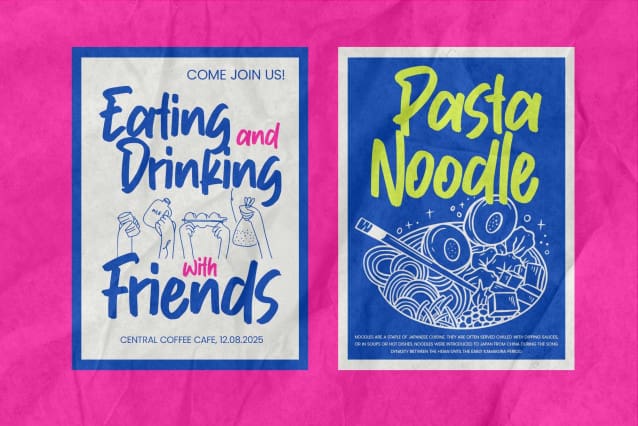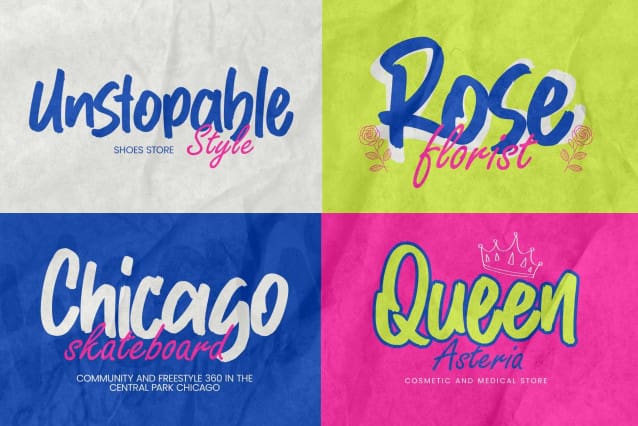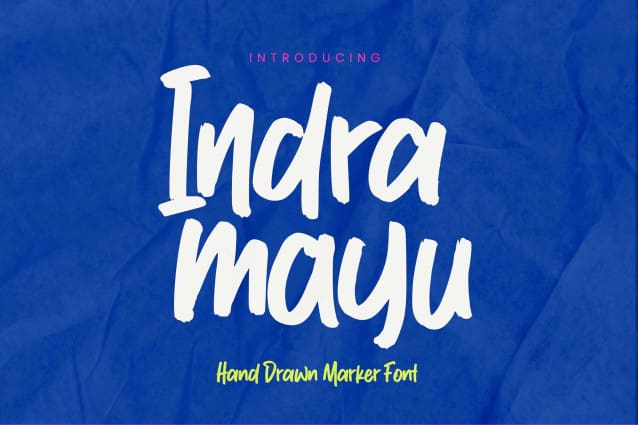
Indramayu Font
Indramayu Font – This is a Hand Drawn Marker Font, this is a handmade font with more alternates and handmade font, this font is perfect for making a strong statement in your designs.